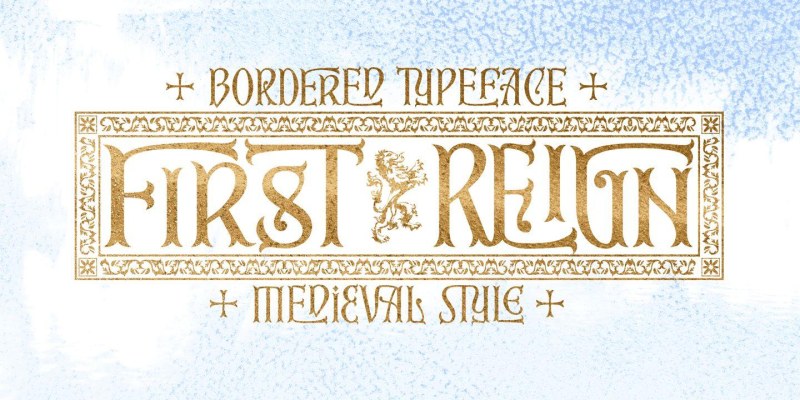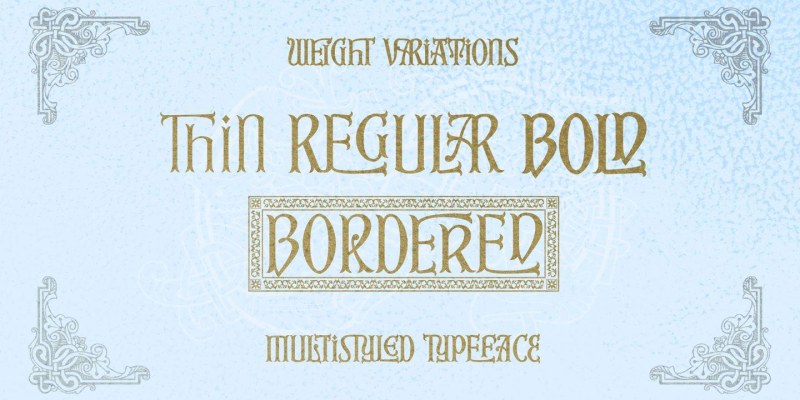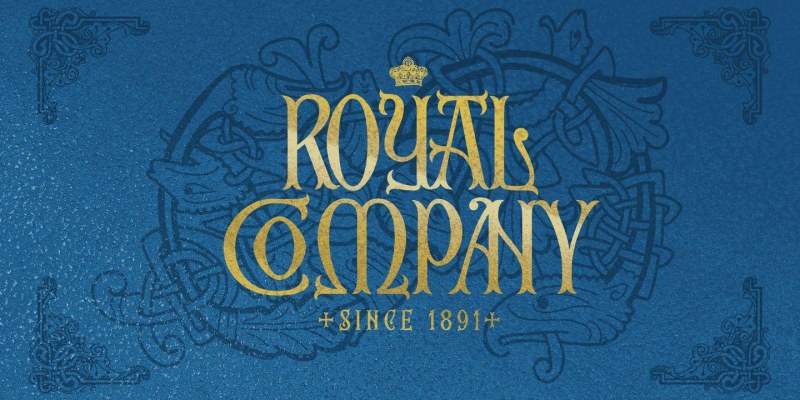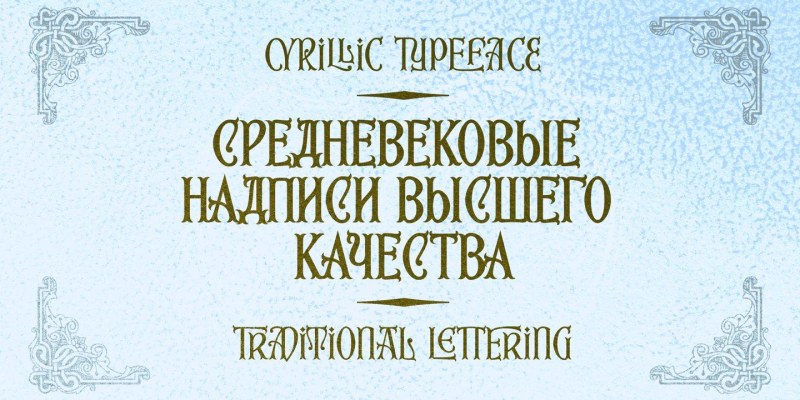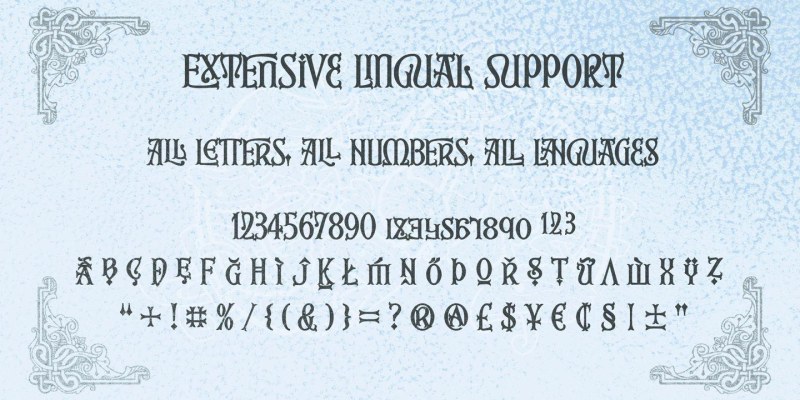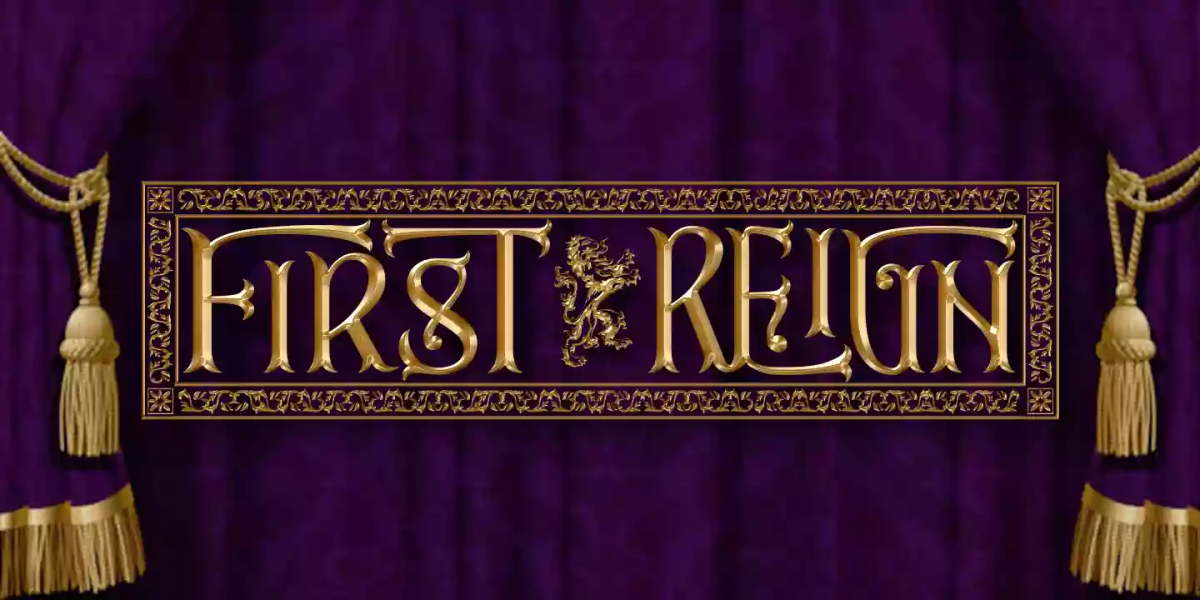
First Reign Font Family
First Reign is a decorative medieval typeface. With borders and ornaments, this swirly uppercase typeface of extreme variability brings us to glorious worlds in the gold…
First Reign is a decorative medieval typeface. With borders and ornaments, this swirly uppercase typeface of extreme variability brings us to glorious worlds in the golden times of epic knight sagas. First Reign is the typeface of a Royal House, of vikings, kings and queens. Use it for a Middle Ages game, a fantasy headline, or as a logotype for anything of historical theme. With usage in any modern software, the letters will automatically overlap and embrace in an elegant way.
The First Reign family consists of four beautiful styles: Decorated capital font provided in Thin, Medium and Bold, plus a Border style.
The font is built with advanced OpenType functionality and has a guaranteed top-notch quality, containing stylistic and contextual alternates, ligatures and more features; all to give you full control and customizability.
It has extensive lingual support, covering Greek and Cyrillic, as well as all Latin-based languages, from North Europe to South Africa, from America to South-East Asia.
It contains all characters and symbols you’ll ever need, including all punctuation and numbers.